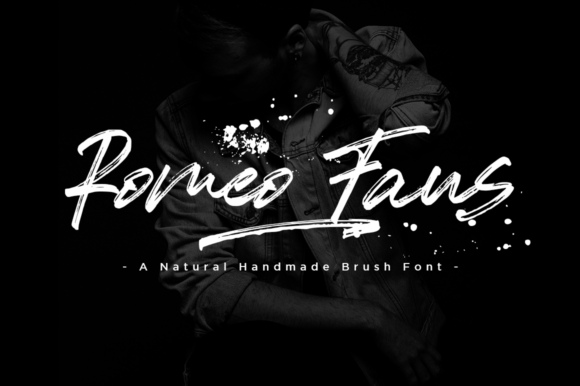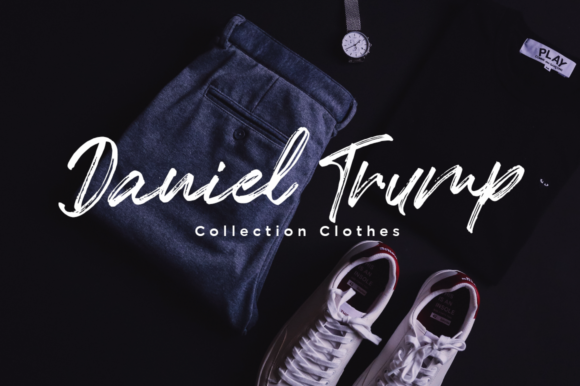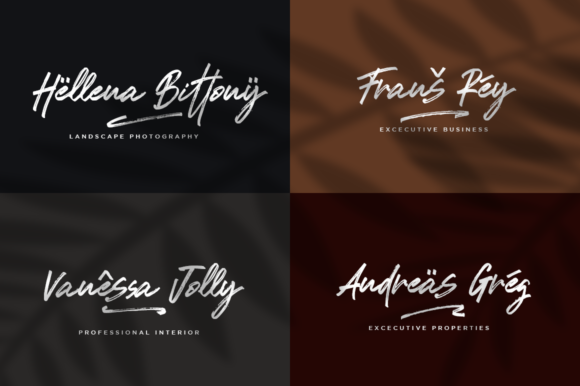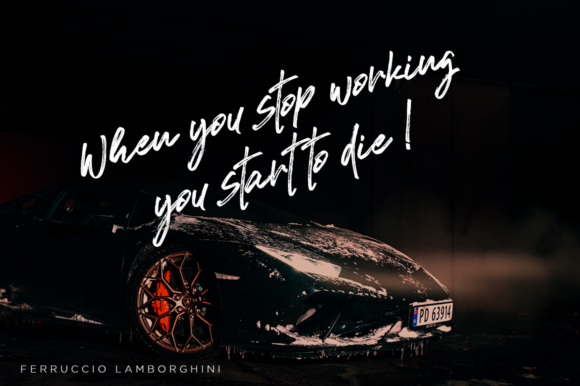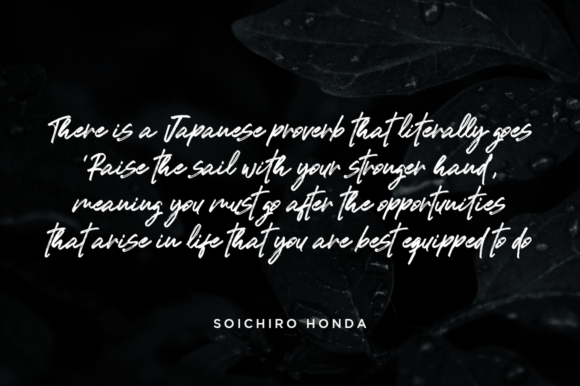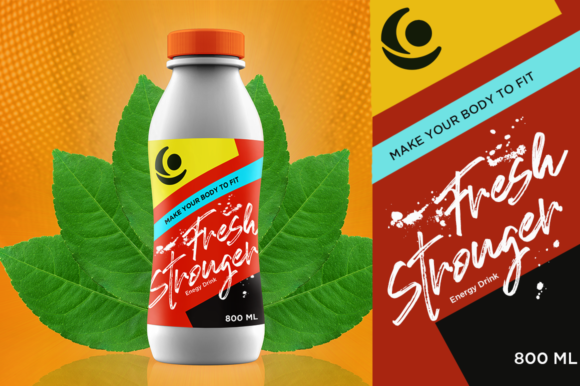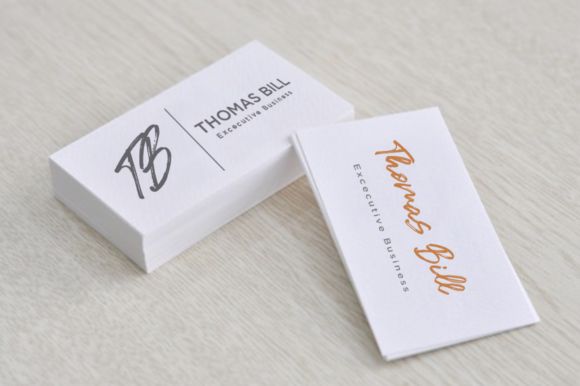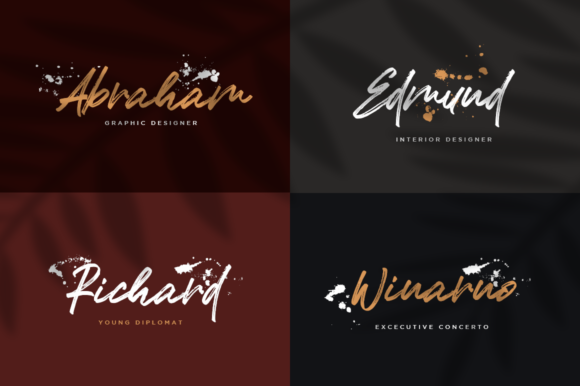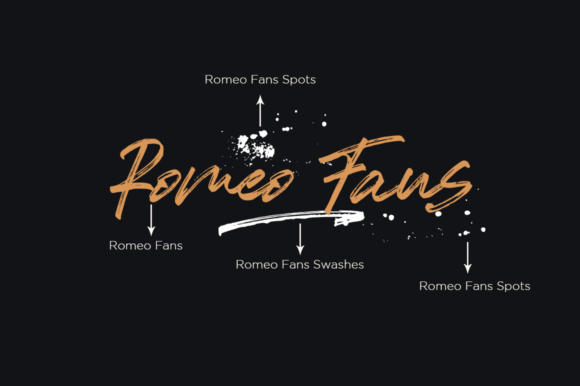
Romeo Fans Font
About Romeo Fans Font
Romeo Fans is a natural brush script with handwritten texture and appearance. Get inspired by its exciting look & feel!